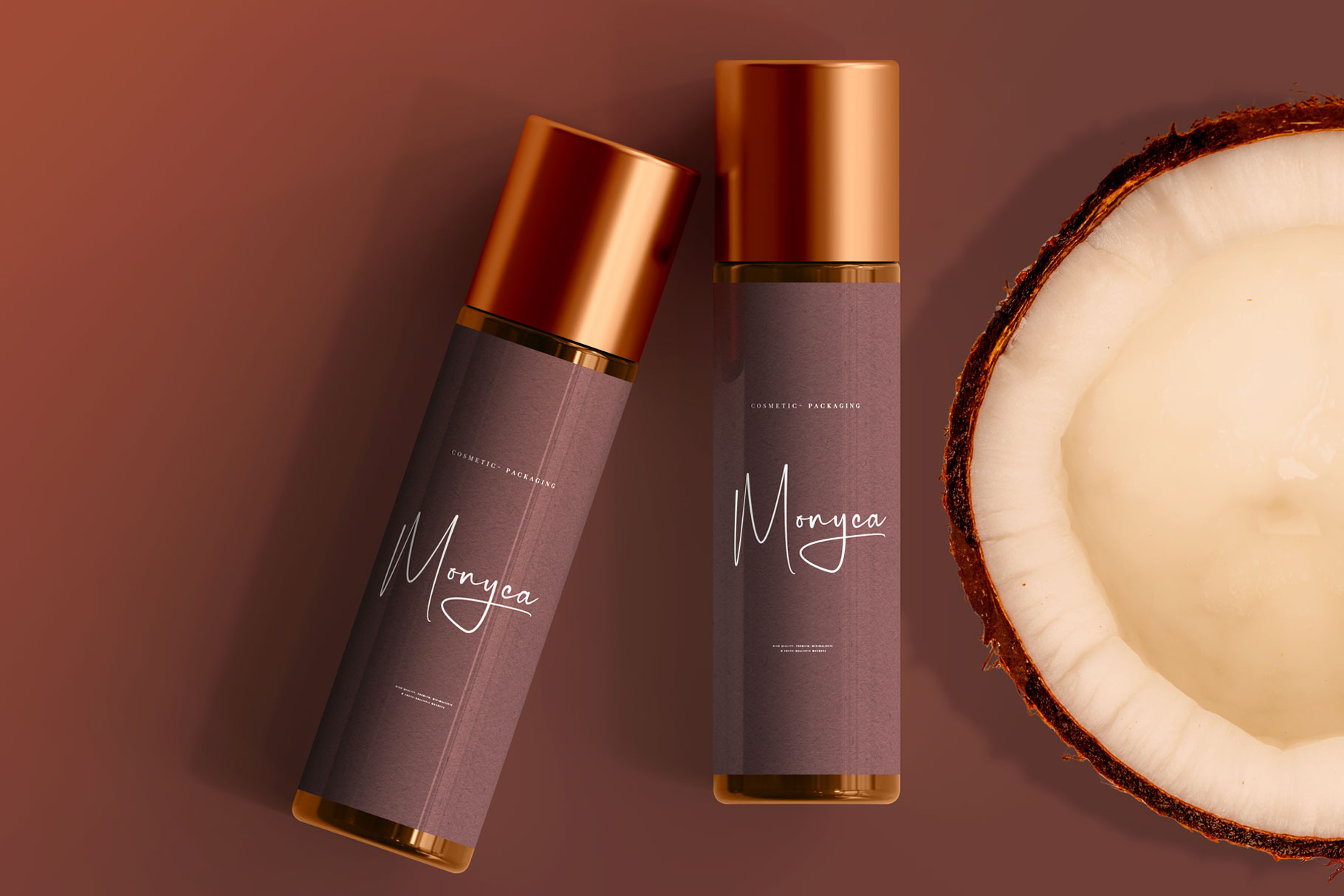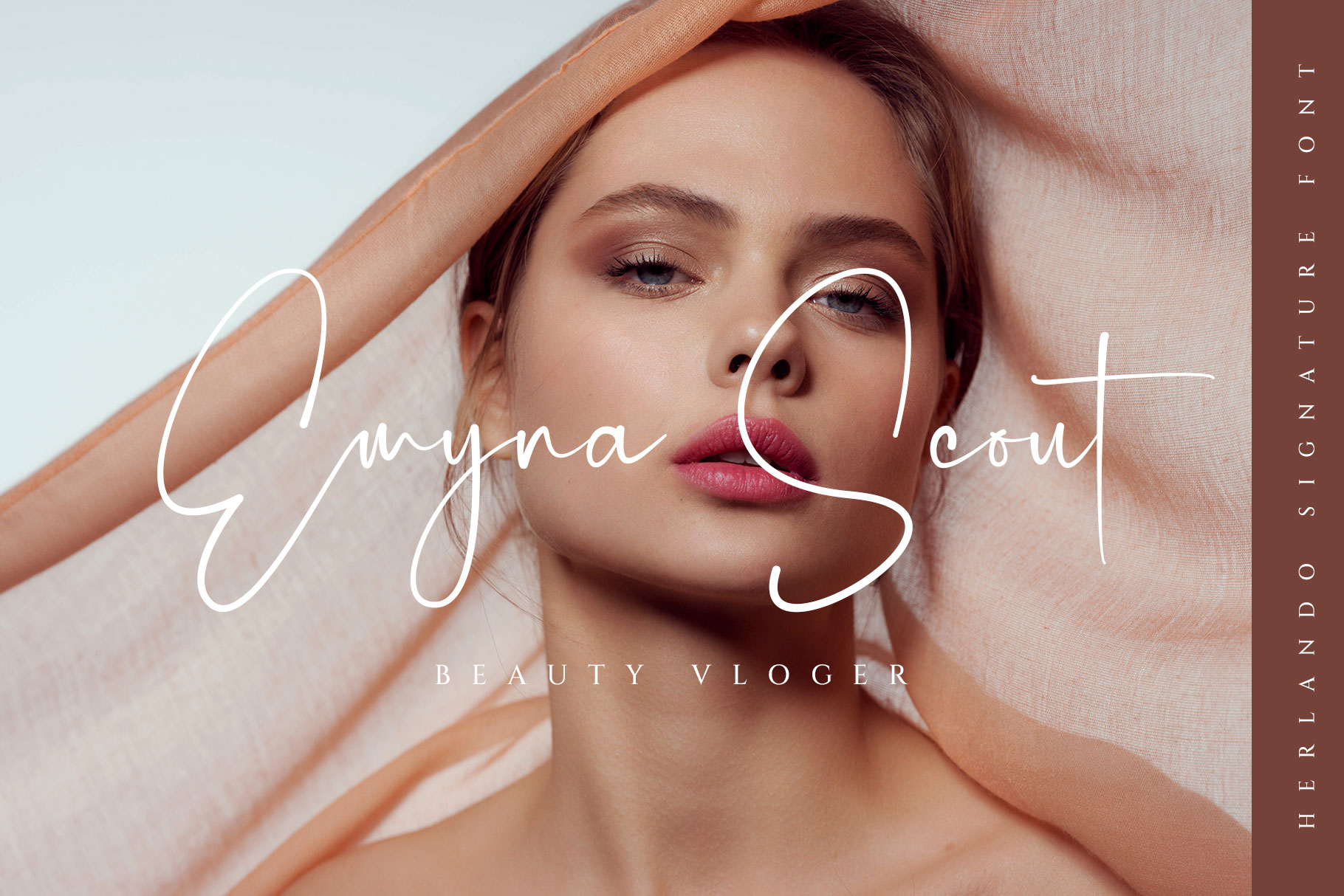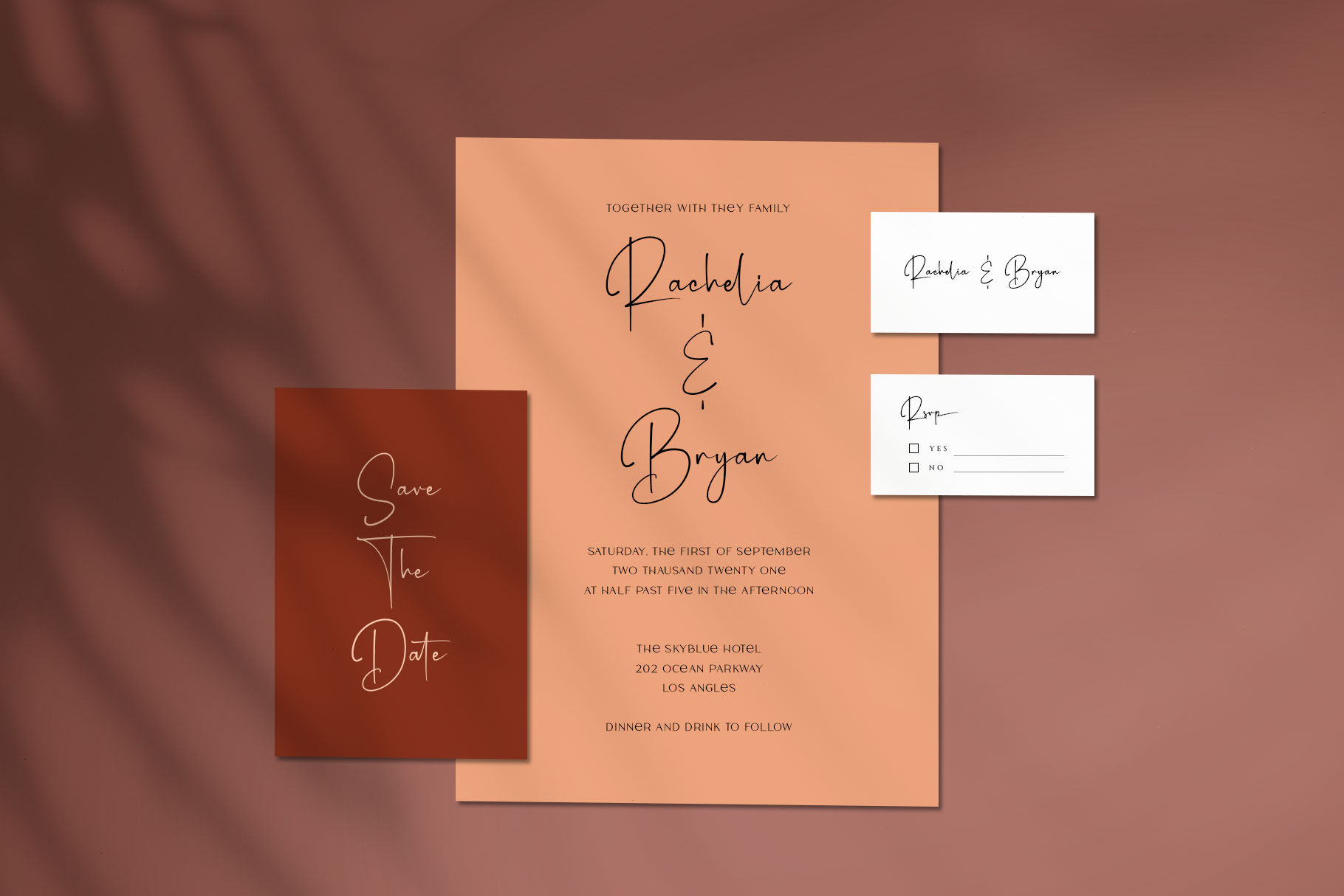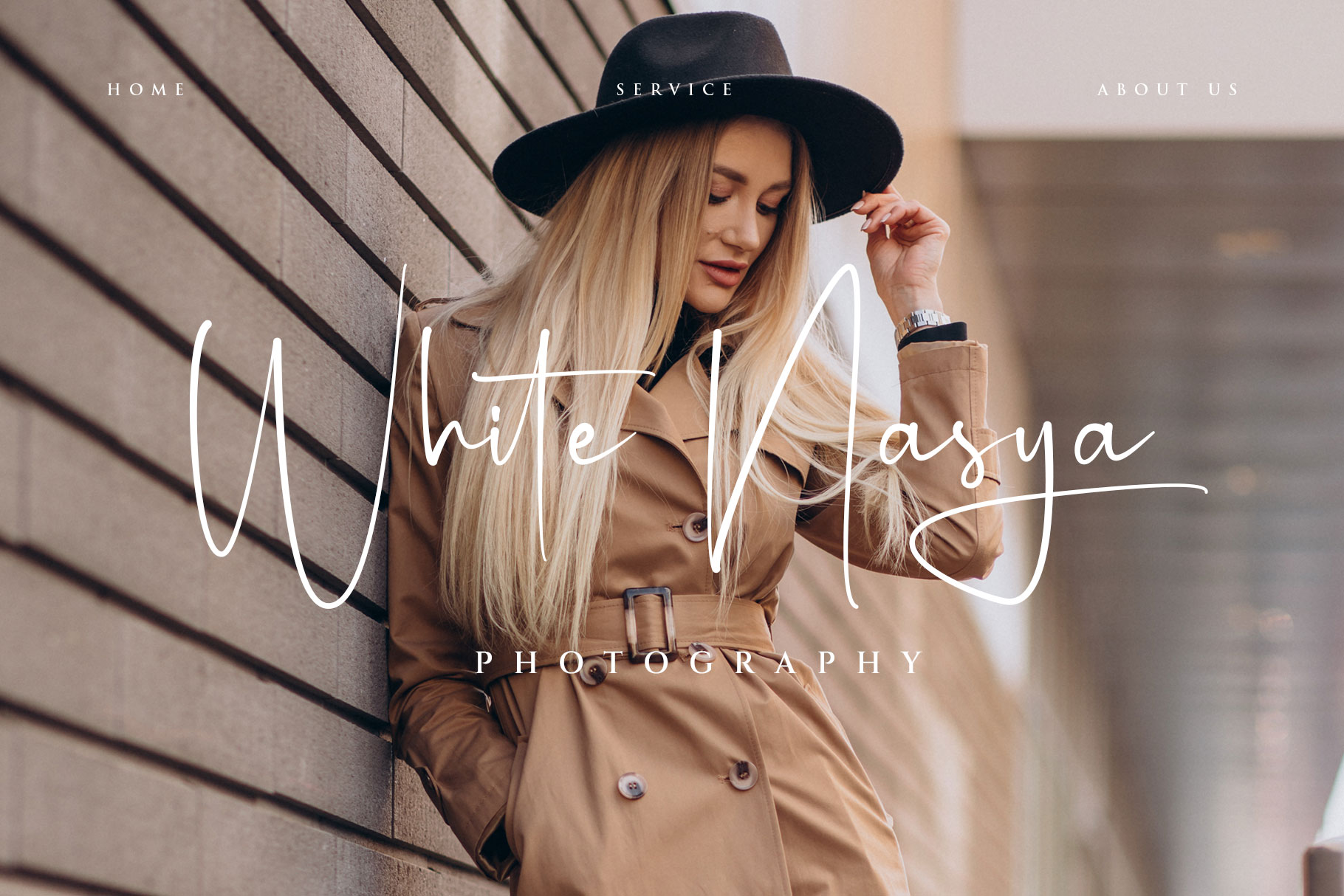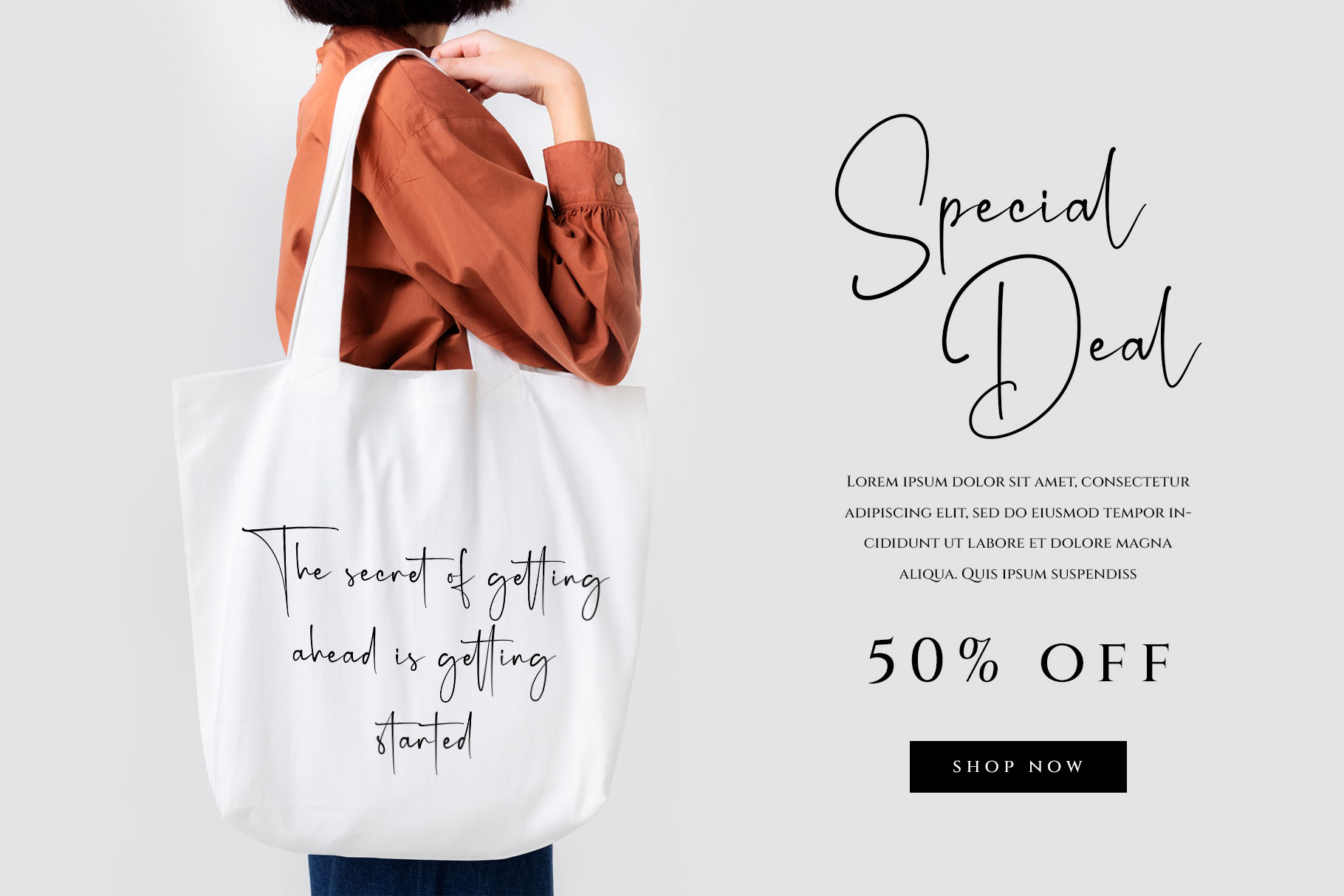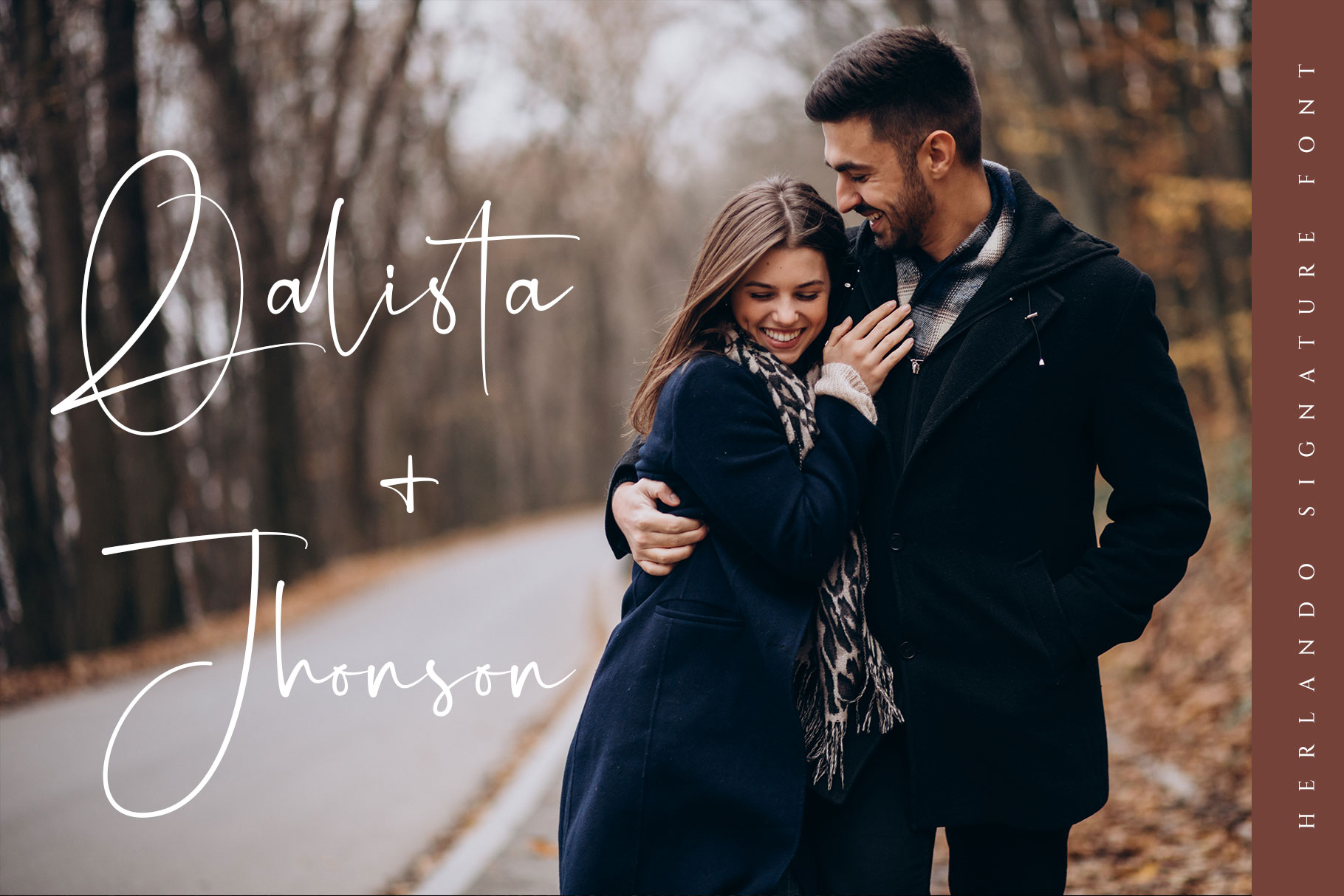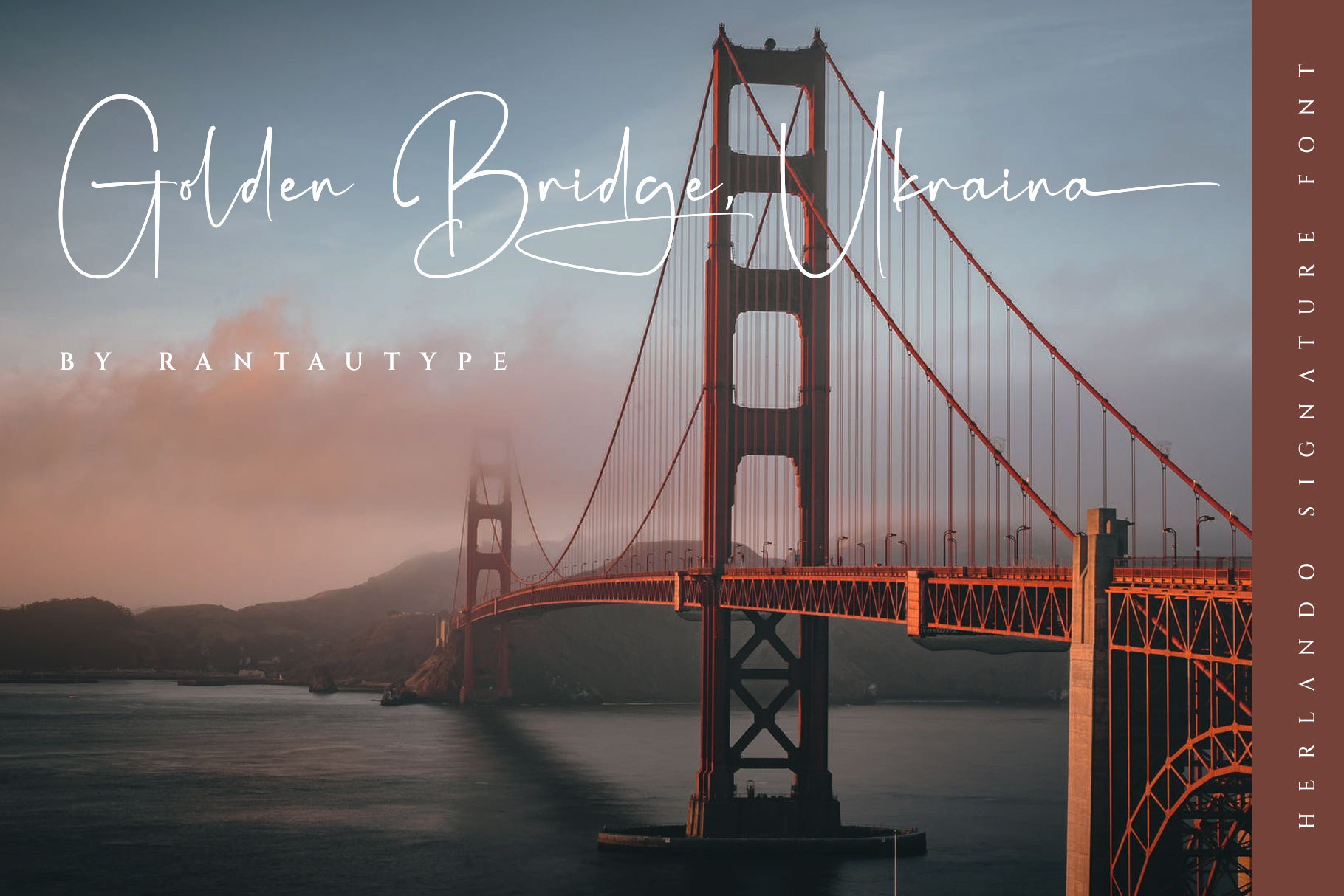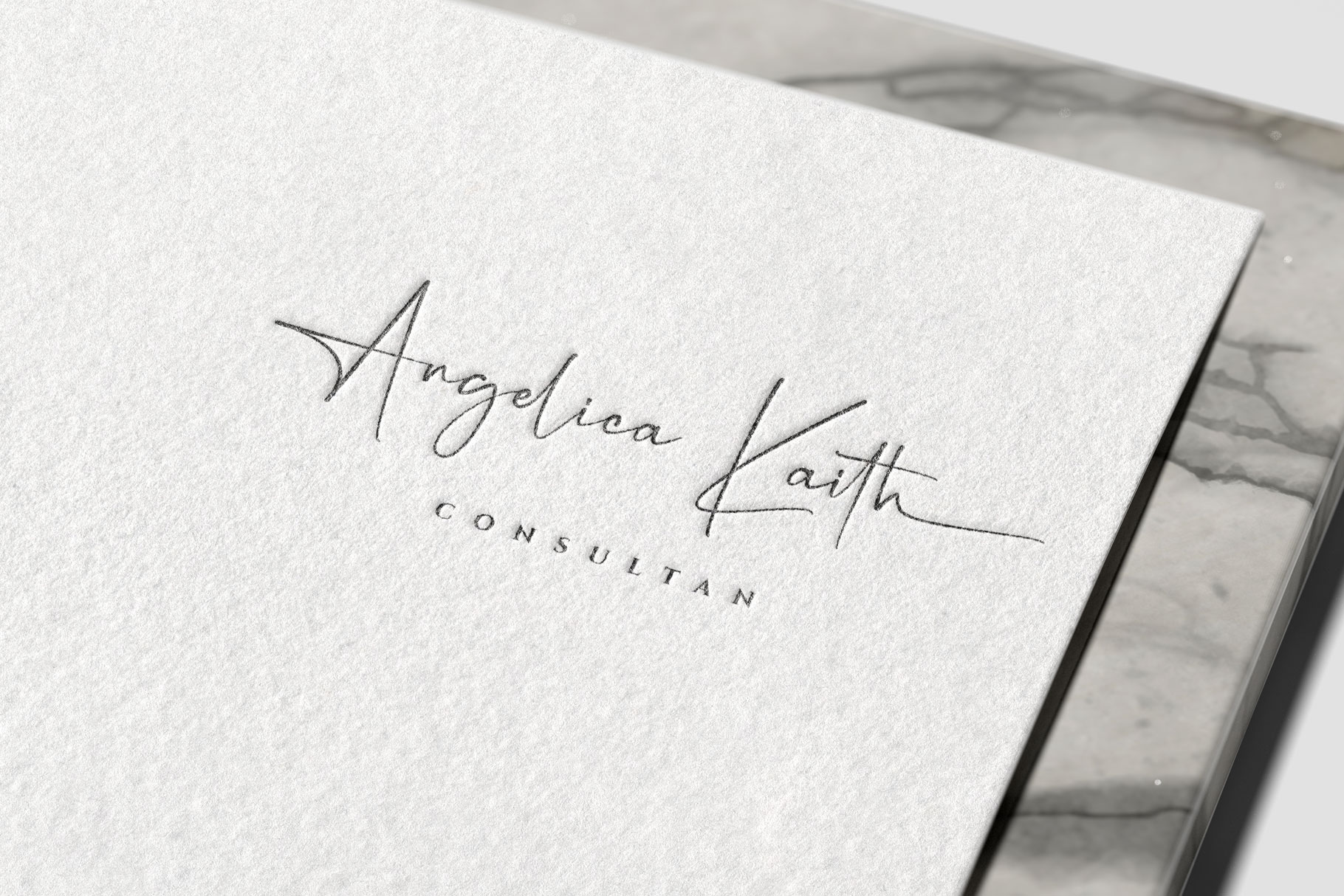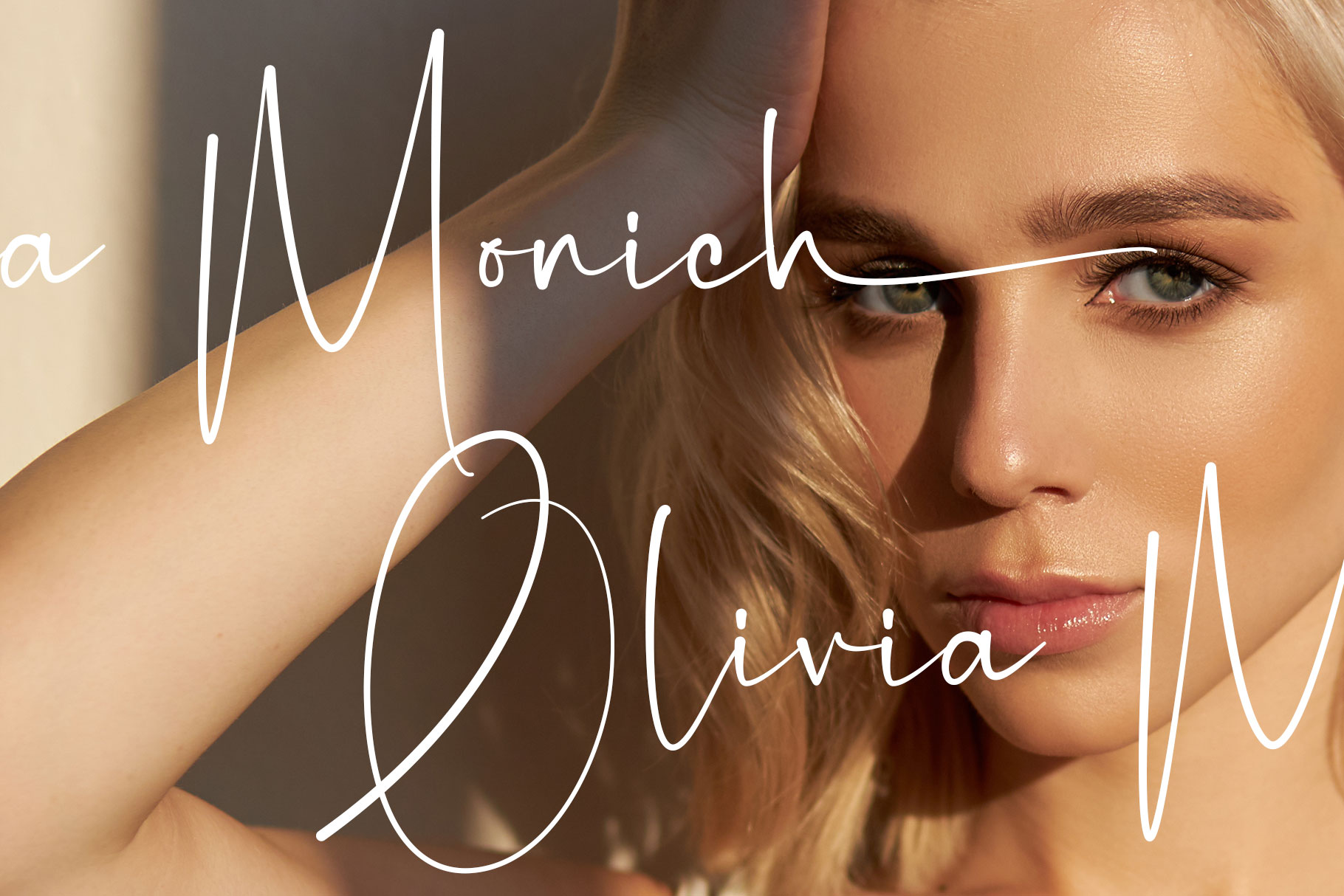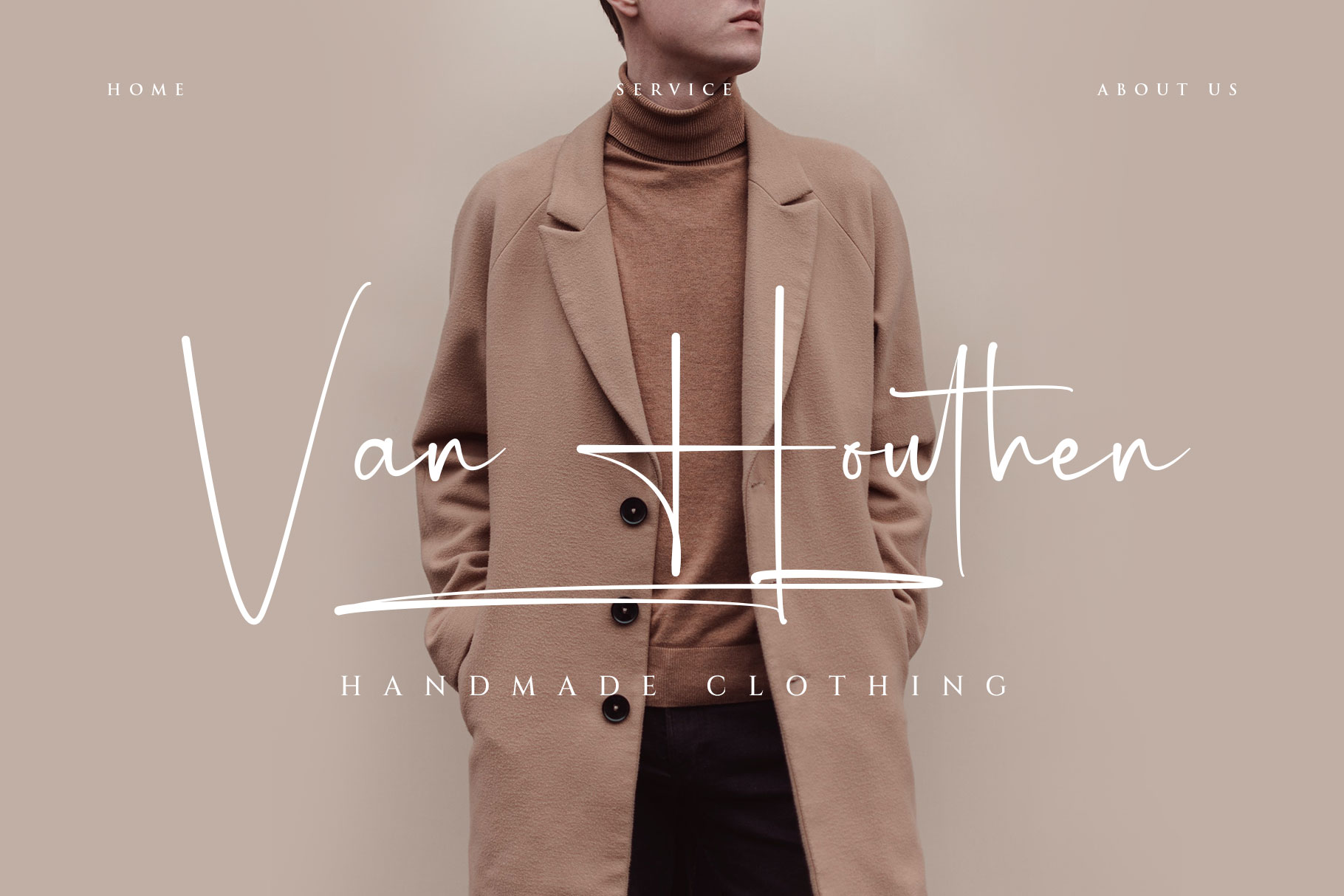
Herlando Signature Font
Proudly present another signature  font “Herlando”. This font is elegant style which can be interpreted professional. we keep this font looks elegant, luxury, premium, modern, readable, stylish, feminine, girly, catchy and easy to use also included with more swash.
Herlando is the great choice for watermark on photography, signature or signature logo design, quotes, album cover, magazine, business card and many other design project. Herlando already in ligature and regular so you can choice what you need to you project. Herlando here to make your work to high level!!!
• Ligature and Alternate
• Swash